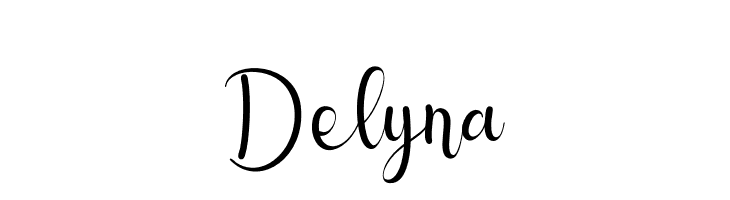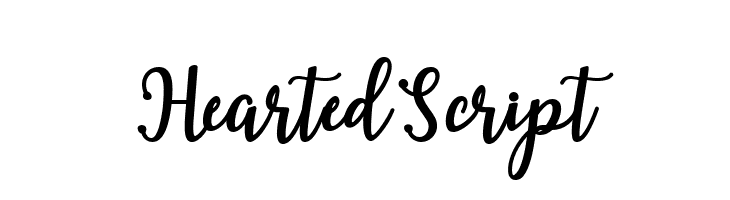
A lively and dynamic handwritten font with fluid, cursive letterforms.
A playful, hollow font with rounded, bubbly characters.
A bold, playful script font with a handwritten style.
A bold, jagged font with a hand-drawn, energetic style.
A bold, handwritten-style font with expressive, fluid characters.
A bold, angular font with a dynamic and geometric style.
A cursive, handwritten font with elegant loops and expressive flourishes.
A modern, geometric font with a unique cut-out effect.
A lively and expressive script font with fluid, cursive strokes and varying thickness.
A bold, playful font with irregular, organic outlines.